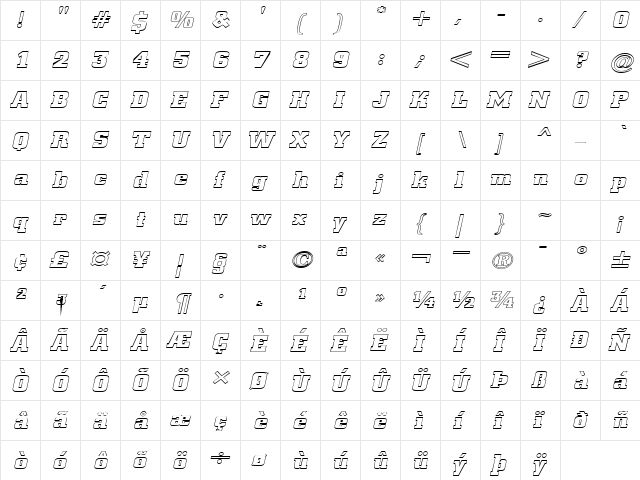
BorghsHollowExtended Italic
Design Context for BorghsHollowExtended Typeface
BorghsHollowExtended is a composed and adaptable typeface that performs quietly and consistently across a wide range of design contexts. The slanted form adds forward momentum and visual energy.
Pro Tip: Use BorghsHollowExtended for emphasis, pull quotes, and subheadings where its slanted energy can add rhythm to the layout.